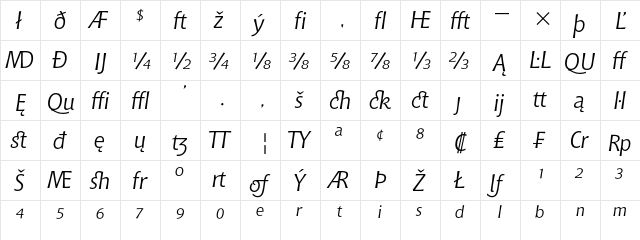
Bitstream Chianti Italic Extension
Design Context for Bitstream Chianti Typeface
Bitstream Chianti takes a measured approach to typography — its balanced proportions and neutral character make it a reliable workhorse for both digital and print work. The slanted form adds forward momentum and visual energy.
Pro Tip: Use Bitstream Chianti for emphasis, pull quotes, and subheadings where its slanted energy can add rhythm to the layout.